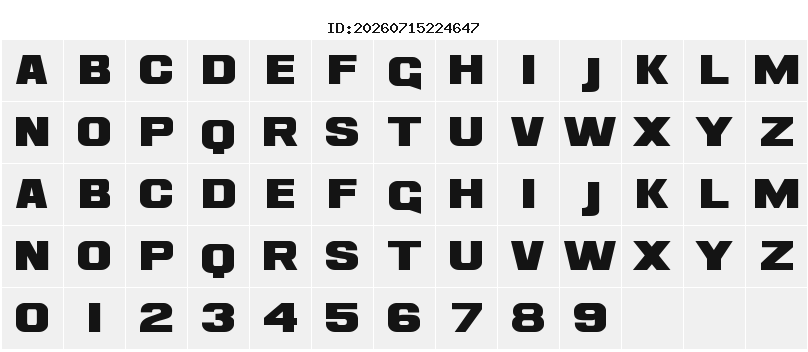
• Font Name: Ash
• Full Font Name: Ash
• Version: Version 1.00 June 7, 2007, initial release
• Designer: Billy-Joe Lee
About Ash.ttf
Ash.ttf is a modern, elegant sans-serif font designed for ultimate readability and visual harmony. Perfect for branding, headlines, web design, and print materials.